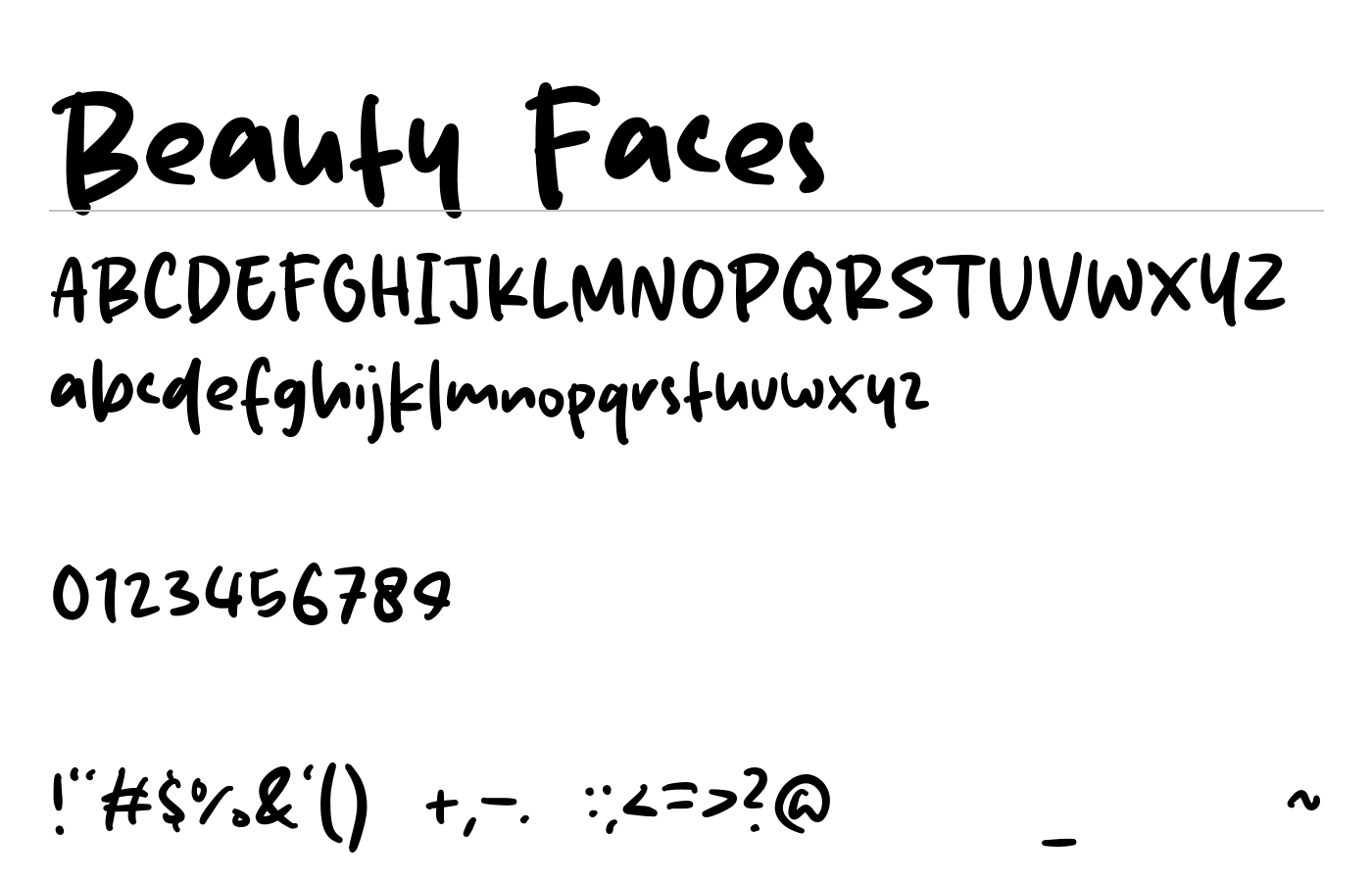
Beauty Faces Font is a casual, handwritten sans serif typeface that feels friendly and approachable with its smooth, rounded strokes and playful letterforms. Its moderate weight and slightly uneven lines give it a natural, personal touch ideal for creative projects, informal branding, and social media graphics. This font works well for headlines, logos, and packaging where a warm, inviting vibe is desired.
Beauty Faces Font
About Beauty Faces Font
| Font family | Beauty Faces Font |
| Designer | Origin Type |